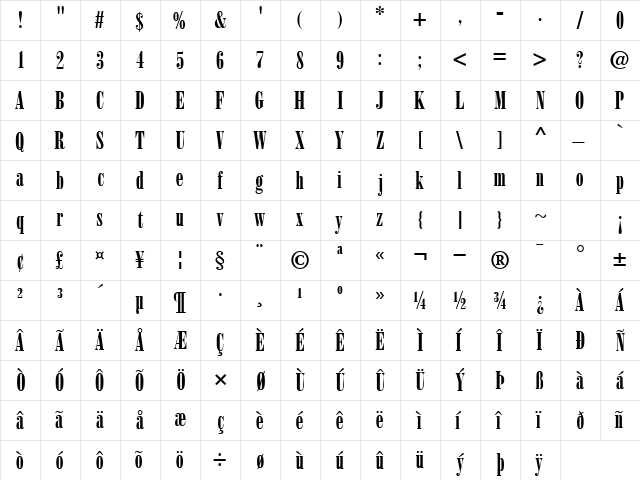
BodoniPosterCondSSK Regular
Design Context for BodoniPosterCondSSK Typeface
BodoniPosterCondSSK offers clean, dependable letterforms without strong stylistic allegiance, making it a practical choice for designers who need flexibility. Its narrow stance lets it pack a punch even in space-constrained designs.